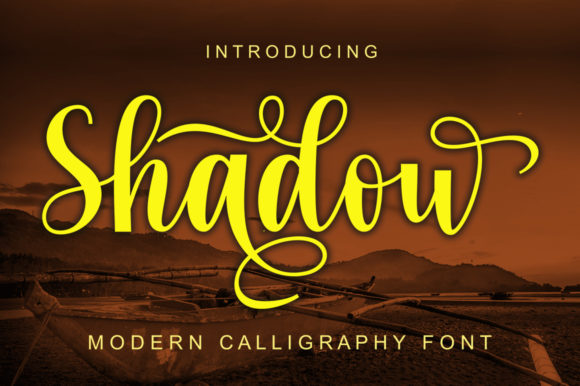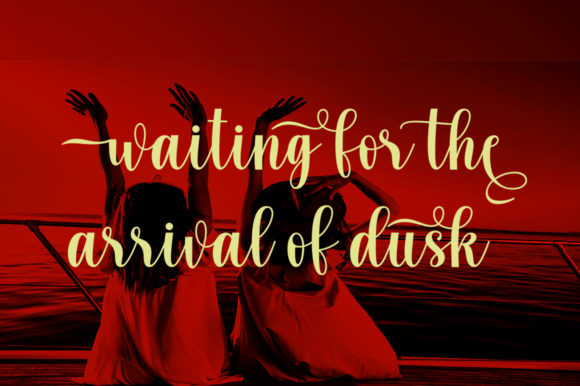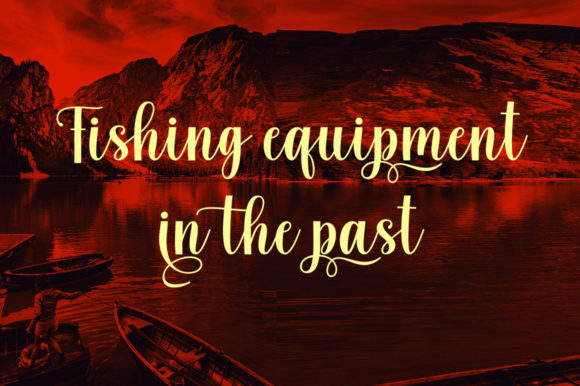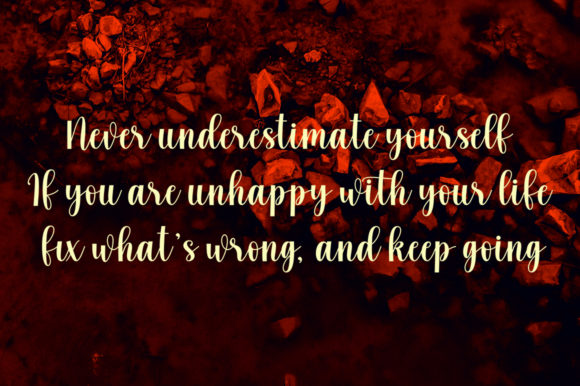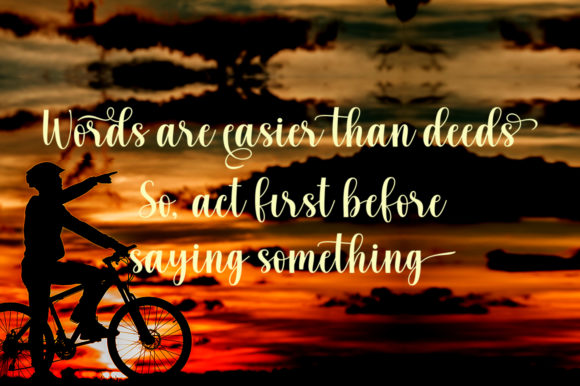
Shadow: Embrace the Elegant Flow of a Handwritten Masterpiece
Introducing Shadow, a font that exudes an incredible sense of elegance and fluidity. With its stunning appearance, this font adds a touch of sophistication to a wide array of designs. From exquisite wedding invitations to heartfelt thank you cards, from inspiring quotes to charming greeting cards, from timeless logos to professional business cards—Shadow reigns supreme, providing the perfect handwritten touch for every creative endeavor.
The allure of Shadow lies in its seamless flow and delicate charm. Each letter glides gracefully, leaving a trail of elegance in its wake. Its varying baseline and smooth lines make it a captivating choice for projects that seek to exude an air of refined beauty.
Designing with Shadow is a true delight. Its stunning appearance elevates any design, turning every project into a work of art. Whether you’re planning a fairy-tale wedding or conveying heartfelt appreciation, this font brings an air of sophistication that leaves a lasting impression on all who behold it.
Expressing sentiments becomes a captivating experience with Shadow. Each word carries a sense of poetry, beautifully crafted by the font’s gorgeous glyphs and stunning alternates. Whether you’re sending warm wishes or sharing inspirational words, Shadow ensures that your message is conveyed with grace and style.
Greeting cards come to life with Shadow’s elegant touch. Birthdays, anniversaries, and special occasions are made extra special with this font’s exquisite appearance, turning each card into a cherished keepsake.
For businesses seeking a logo that stands out, Shadow is the perfect choice. Its elegant flow and timeless appeal make it a versatile option for brand identity design. Whether your brand is luxurious and high-end or friendly and approachable, this font can be tailored to suit your unique vision.
And when it comes to enhancing your designs, Shadow shines brightly. From merchandise to promotional materials, from social media graphics to event posters, this font adds a touch of sophistication that draws attention and admiration.
Not only is Shadow incredibly elegant, but it also boasts versatility. Its smooth lines and artistic alternates allow it to adapt to a wide range of design concepts, making it a go-to font for designers looking to add a handwritten touch to their projects.
In conclusion, Shadow is a font that deserves to be cherished and celebrated. Embrace its elegant flow, and let it breathe life into your designs. From the grandest celebrations to the most heartfelt expressions, this font will make your projects shine with sophistication and charm. Add Shadow to your creative arsenal and witness how it transforms your ideas into timeless works of art. Allow this font to be the guiding light that leads you to create truly stunning designs filled with the allure of elegance and grace.